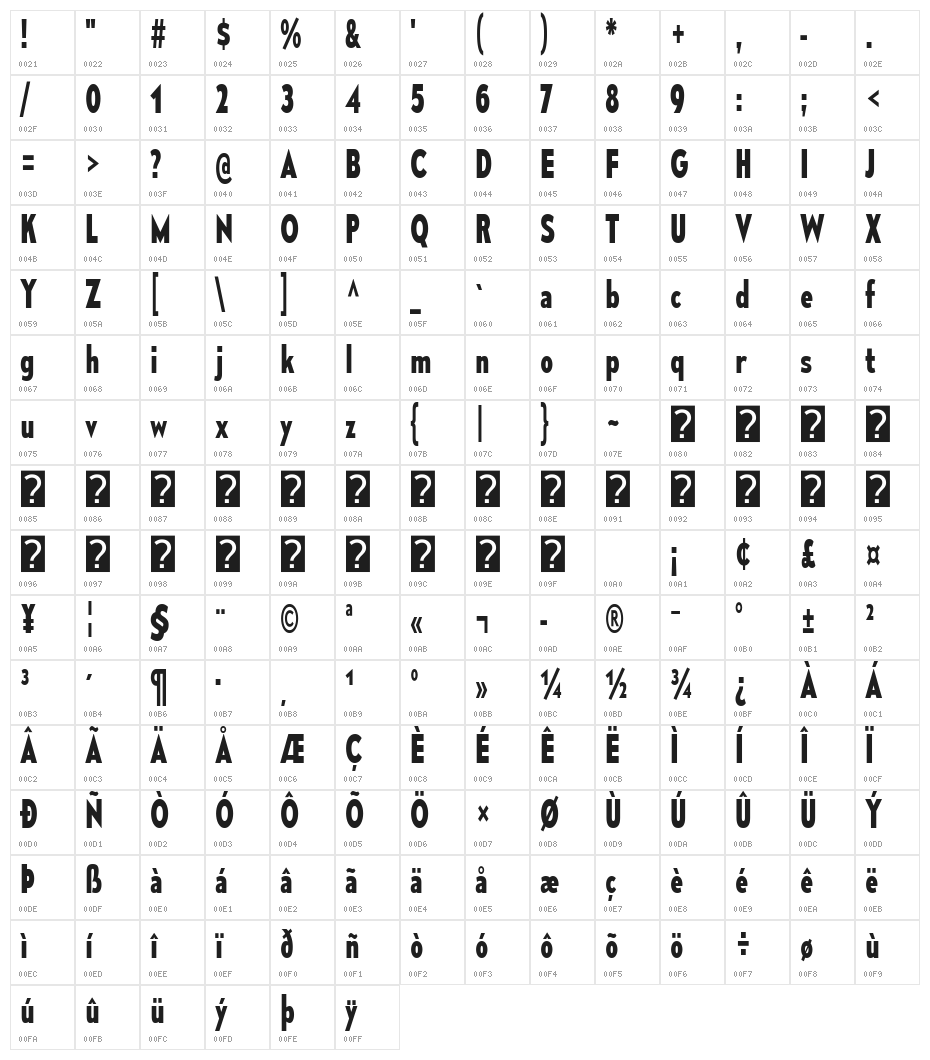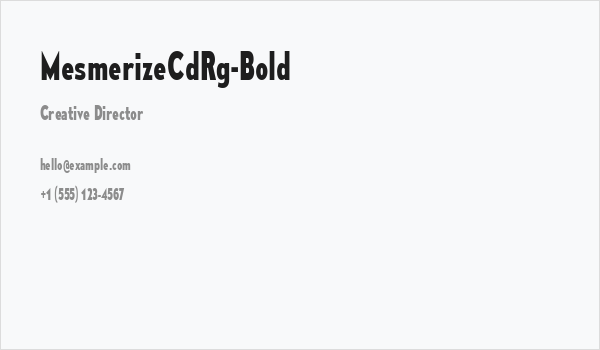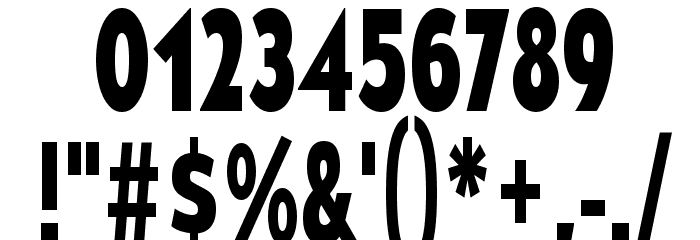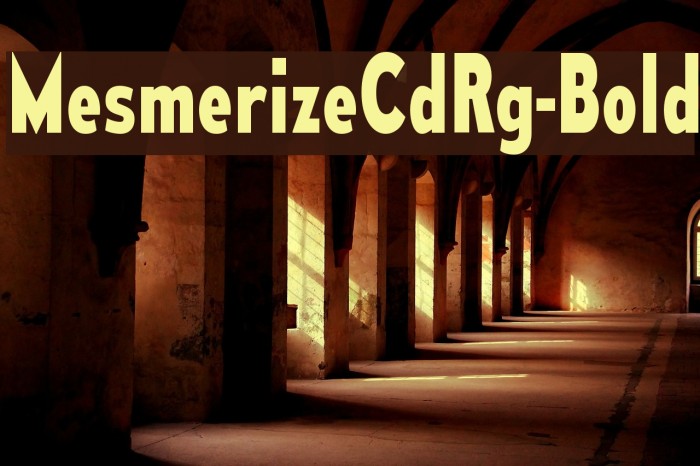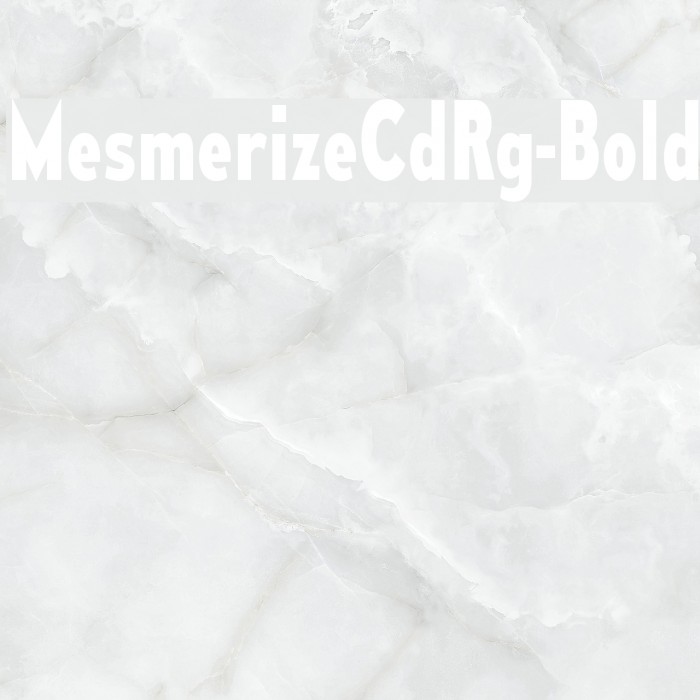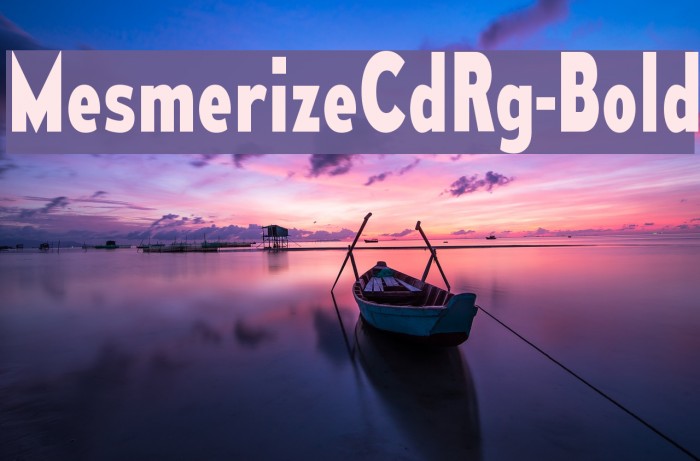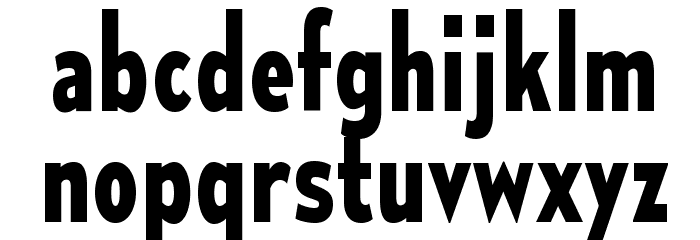
MesmerizeCdRg-Bold Font
This font features bold, impactful characters with a strong presence, making it ideal for attention-grabbing headlines and titles. The uppercase letters are robust and commanding, while the lowercase letters maintain a consistent weight, ensuring readability. The numerals are clear and distinct, complementing the overall bold aesthetic. Special characters are well-defined, adding versatility to the font's use. The design is modern and straightforward, with a slight geometric influence that enhances its contemporary appeal.
Typodermic Fonts - Ray Larabie - www.typodermicfonts.com/
| Proposed Projects | Ideal for branding, advertising, posters, and any project requiring a bold statement. |